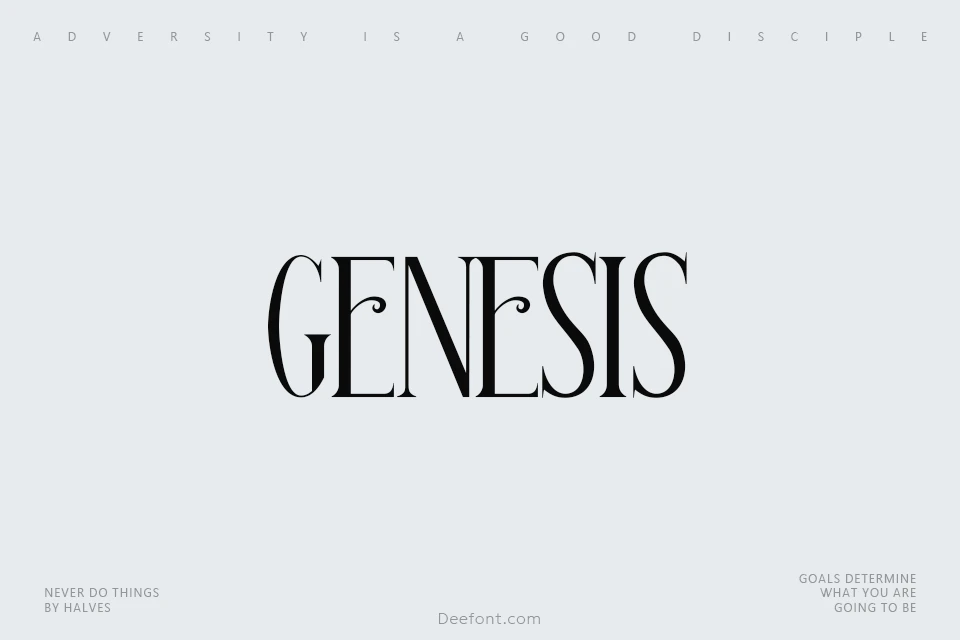
Genesis Font
Genesis Font: Inspired by the opulent Art Deco era, this organic serif font is perfect for grand titles. It supports Greek and English capital letters, numbers, and various symbols, making it ideal for projects like cards, posters, and book covers. Its elegant style elevates any design, adding a touch of vintage sophistication.